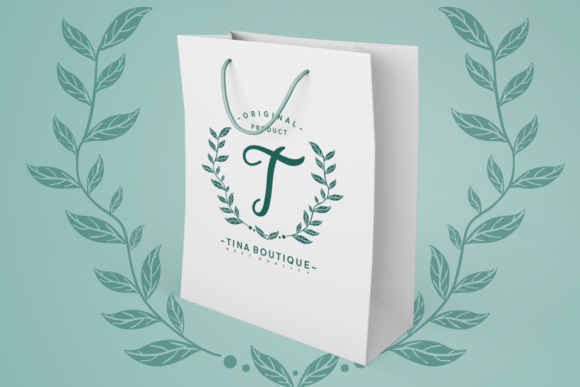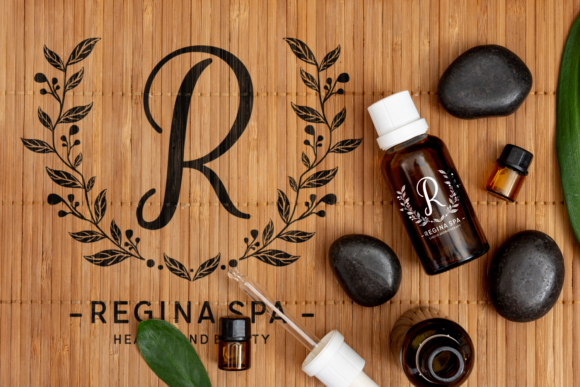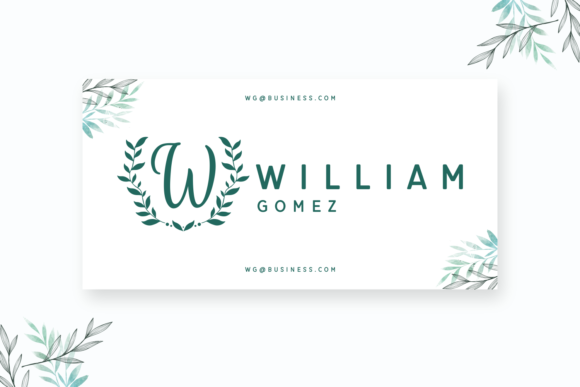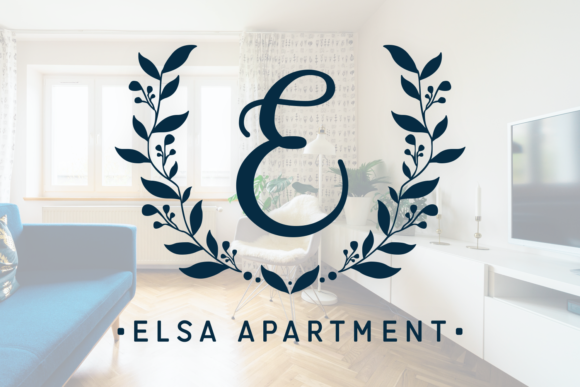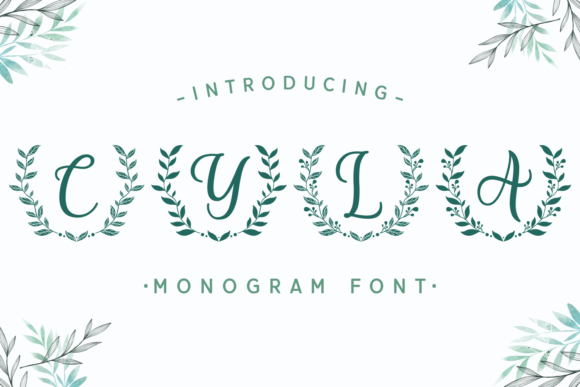
Cyla Font: Elevate Your Design Projects with Elegance and Sophistication
In the world of design, fonts play a crucial role in conveying the tone and aesthetic of a project. For designers and crafters seeking to add a touch of elegance and sophistication to their work, the Cyla Font is an exceptional choice. This gorgeous monogram decorative font is designed to turn any design project into a standout, thanks to its beautiful botanical wreaths that evoke an organic and natural, yet royal feel.
What is Cyla Font?
Cyla Font is a decorative monogram font that features intricate botanical wreaths, perfect for adding a touch of luxury and refinement to any design project. The font’s unique design combines organic elements with a sense of regality, making it ideal for a wide range of applications, from wedding invitations and stationery to branding and packaging.
Key Features of Cyla Font
- Botanical Wreaths: The font features stunning botanical wreaths that add an organic and natural feel to your designs.
- Monogram Decorative: Cyla Font is a decorative monogram font, perfect for creating custom monograms and logos.
- Royal Feel: The font’s design exudes a sense of luxury and sophistication, making it perfect for high-end branding and design projects.
- Elegant and Sophisticated: Cyla Font is designed to add an touch of elegance and refinement to any design project.
Uses of Cyla Font
Cyla Font is a versatile font that can be used in a variety of design projects, including:
- Wedding Invitations: Add a touch of elegance and sophistication to your wedding invitations and stationery.
- Branding and Packaging: Use Cyla Font to create luxurious and high-end branding and packaging designs.
- Stationery: Elevate your stationery designs with the font’s beautiful botanical wreaths.
- Signage: Cyla Font is perfect for creating eye-catching and elegant signage for events and businesses.
Tips for Using Cyla Font
- Pair with Neutral Colors: Pair the font with neutral colors to let the botanical wreaths take center stage.
- Experiment with Sizes: Experiment with different font sizes to create visual interest and hierarchy in your designs.
- Add Texture: Add texture to your designs by combining the font with images or illustrations.
Cyla Font is a stunning monogram decorative font that can elevate any design project with its elegant and sophisticated design. With its beautiful botanical wreaths and royal feel, this font is perfect for designers and crafters seeking to add a touch of luxury and refinement to their work. Whether you’re designing wedding invitations, branding and packaging, or stationery, Cyla Font is an exceptional choice.